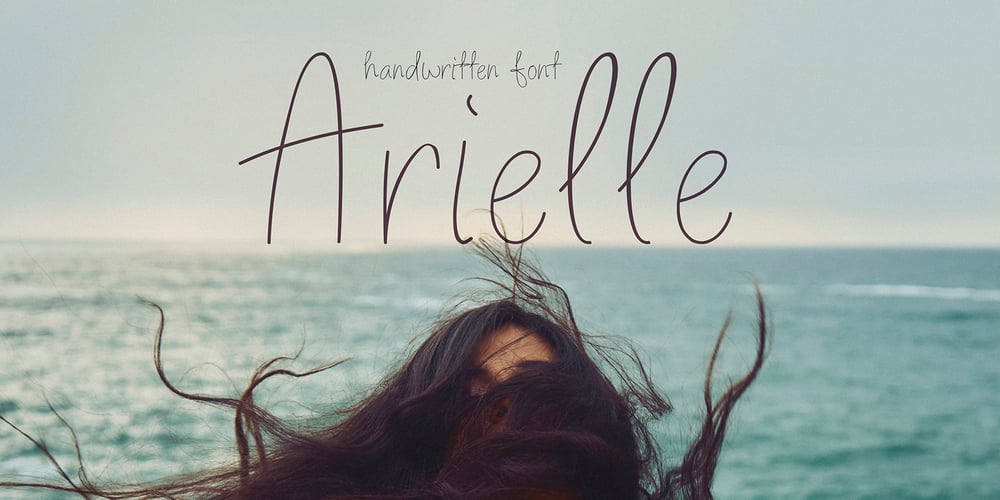
Arielle Font Family was designed by Anastasia Kuznetsova and published by Anastasia Kuznetsova. Arielle contains 1 styles and family package options. I present the new handwritten font “Ariel” – a fashionable and super-cooled new font for handwriting with some stylish watercolor additions :)The font of the signature collection was created in such a way as to look as close as possible to a natural handwritten font, which includes a full set of characters in lowercase.Font Features• A-Z; a-z character set;• 1 language (English);• numbers and punctuation marks, symbolsFonts can be opened and used in any software that can read standard fonts, even in MS Word. No special software is required, and to get started.It is recommended to use it in Adobe Illustrator or Adobe PhotoshopMade with love ♡